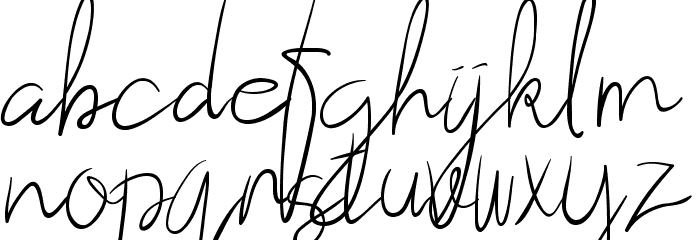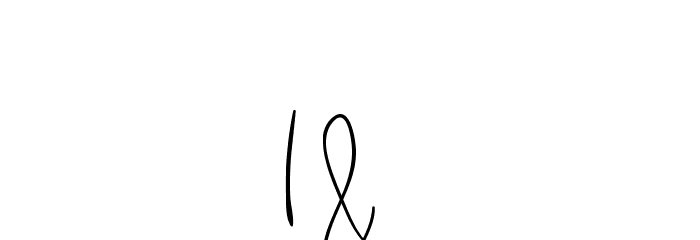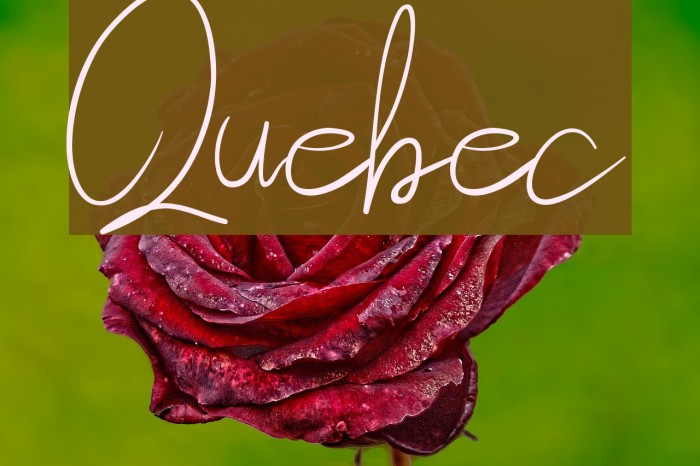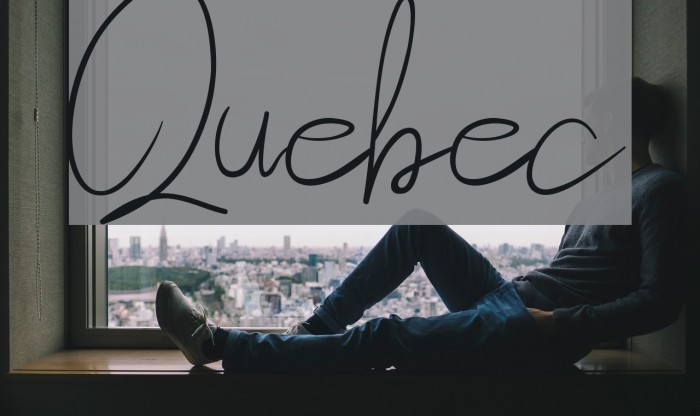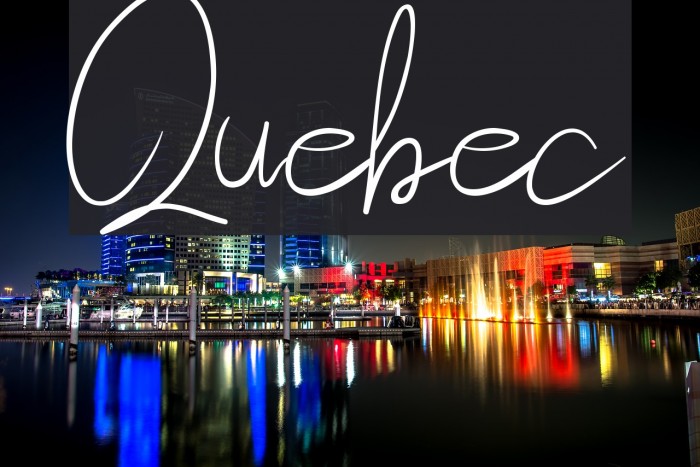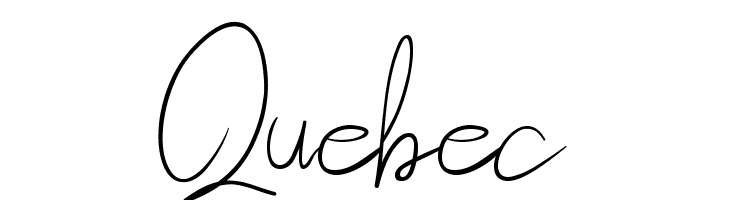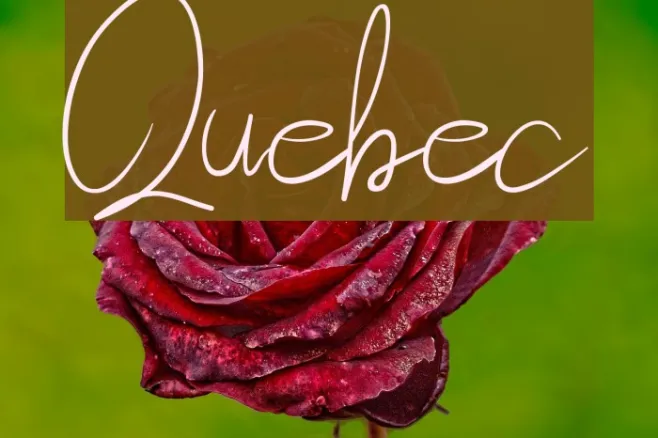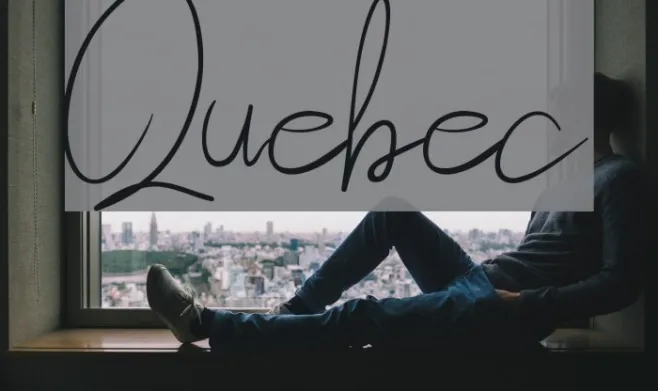
Quebec Font
This font features a fluid, handwritten style with a modern twist. The uppercase letters are tall and slender, with a slight slant that adds a sense of motion and elegance. The lowercase letters are more compact, maintaining the same slant and fluidity, which creates a harmonious balance between the two cases. The strokes are thin and delicate, giving the font a light and airy feel. The numerals and special characters follow the same style, ensuring consistency throughout. This font is perfect for projects that require a personal touch, such as invitations, greeting cards, or branding materials.
A fluid, handwritten font with a modern, elegant style.